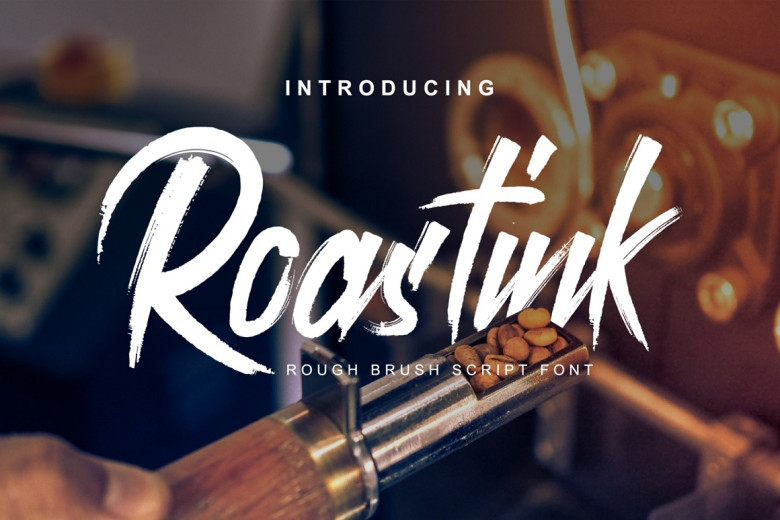
Roastink Font
Roastink is rough brush script font script features many opentype features including lower and upper case standard characters punctuation numerals and punctuation languages multilingual characters alternatives and other glyphs that make this font perfect for commercial and personal uses.
Roastink Brush Script Font